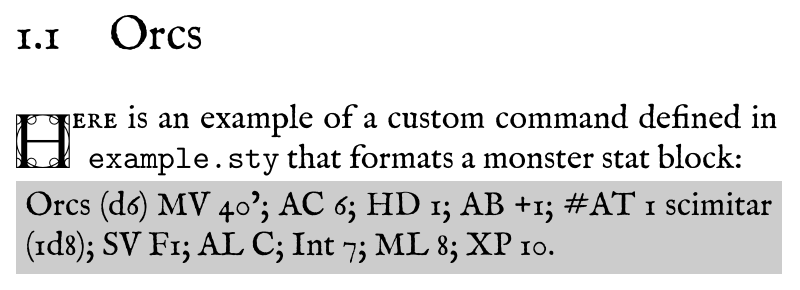
Basic font attributes in LaTeX are family, series, shape, and size. There is also encoding, but for our purposes, T1 (\usepackage[T1]{fontenc}) will suffice.
Family
Roman (serif) |
Sans serif |
Typewriter |
Series
Medium |
Bold |
Shape
Italic |
Slanted |
Small caps |
Emphasized |
Change small caps to upper/lower case |
Change italic, slanted, or emphasized to upright |
Reset shape to normal |
Use the \normalfont command to reset it all back to default.
Size
Keep in mind that this list of commands is not comprehensive. For more information, check out the full documentation of LaTeX font commands.1
The basic way to underline the text is to use the \underline command. For more options, including various shapes, strike-out, crossed-out, and more, check out the ulem package.2
\textsuperscript and \textsubscript command will transform the text to superscript and subscript accordingly.
To display large blocks of verbatim text, use the verbatim environment:
For the short snippets, use \verb:
Starred versions (verbatim* and \verb*) replace spaces with the "open box" character ␣.
Fully justified |
Centered |
Left-justified |
Right-justified |
For more special characters, including accented letters, ligatures, and punctuation, see Chapter 2: "Body-text symbols" of "The Comprehensive LaTeX Symbol List".3
Line breaks
The simplest way to start a new line in LaTeX is to leave an empty line between two blocks of text. Some other useful commands are listed below:
Page breaks
The LaTeX Font Catalogue4 contains the list of all free fonts available for LaTeX, including instructions on how to use them.
For example, let's say we want to change our main font to a fancier one — IM Fell English.5
Usage of your own fonts is also possible through the fontspec6 package, but requires you to use XeTeX or LuaTeX compiler.
If you need a rare special symbol, a glyph, or a dingbat, you most probably will find it in "The Comprehensive LATEX Symbol List".3
Another useful package in that regard is fontawesome5,7 that provides Font Awesome8 implementation in LaTeX.
AKA drop capitals — is a letter at the beginning that is larger than the rest of the text.9 The easiest way to do this is the lettrine10,11 package, and when combined with some fancy font from the catalogue, produces beautiful results.
Basic usage of this: